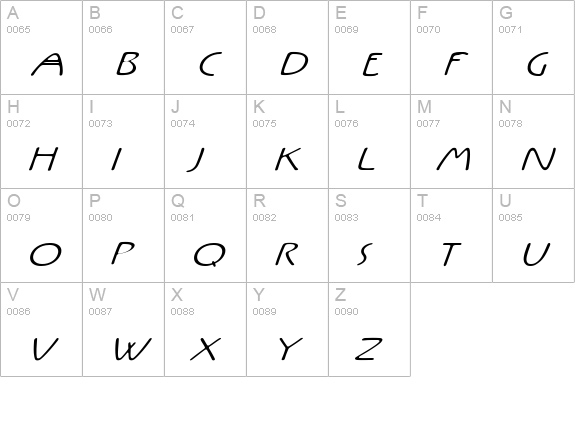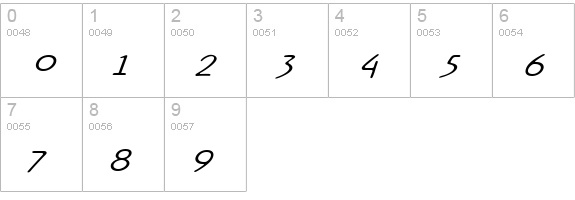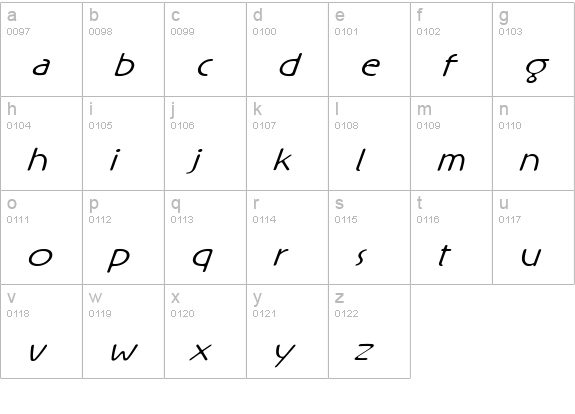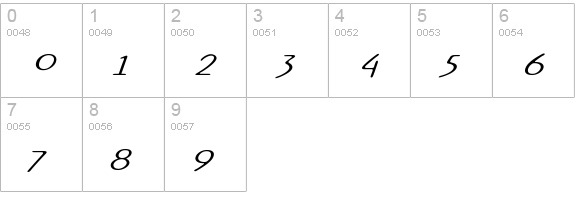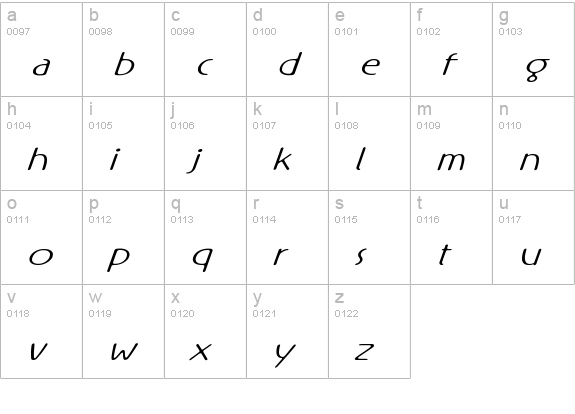
Rx-OneOne Font Details
Introducing Rx-OneOne font, a versatile and modern typeface that exudes elegance and sophistication. With its sleek lines and stylish curves, Rx-OneOne is the perfect choice for a wide range of design projects, from branding to editorial design. This font strikes the perfect balance between professionalism and creativity, making it suitable for both formal and informal settings. What sets Rx-OneOne font apart is not just its aesthetic appeal, but also its accessibility. This high-quality font is available for free download at FontsMarket.com, making it easily accessible to designers and creatives looking to elevate their projects without breaking the bank. Whether you're working on a logo, website, or print materials, Rx-OneOne font is sure to make a lasting impression. Embrace the versatility and elegance of Rx-OneOne font in your next design project, and see how it can elevate your work to new heights. Download this stunning font for free today at FontsMarket.com and get ready to create designs that stand out from the crowd.